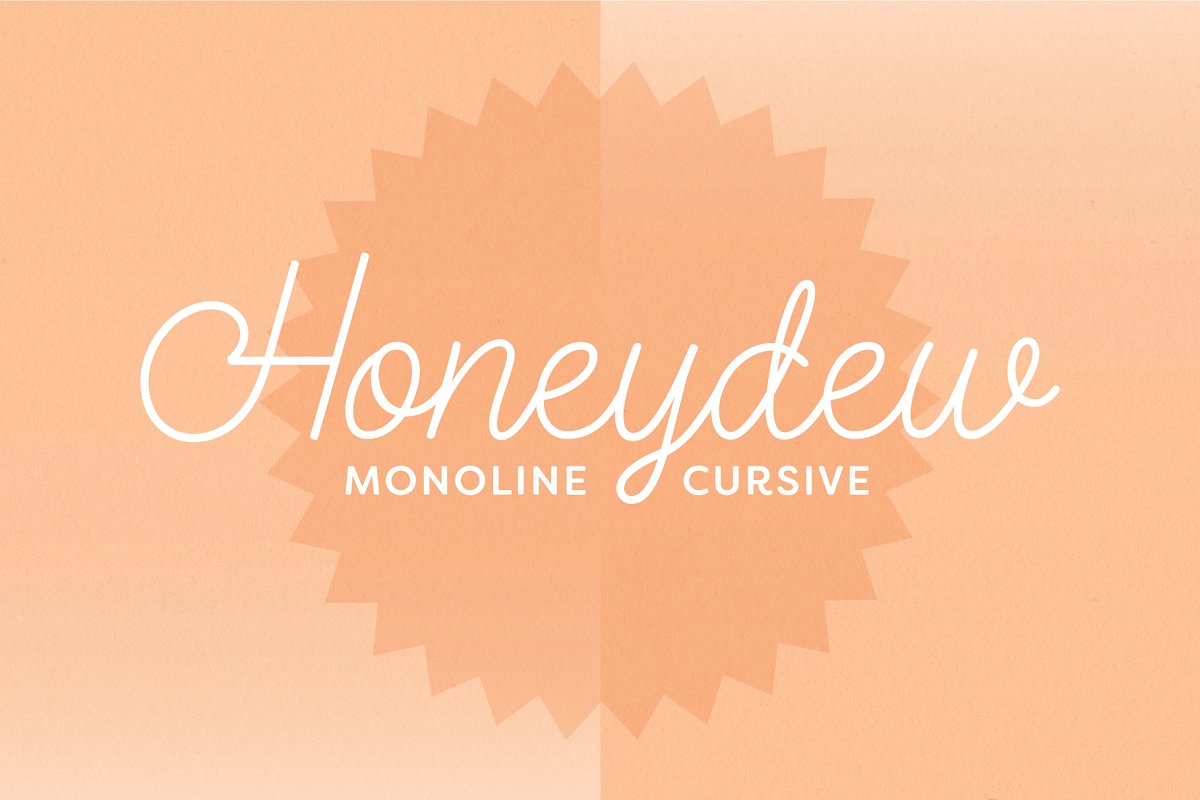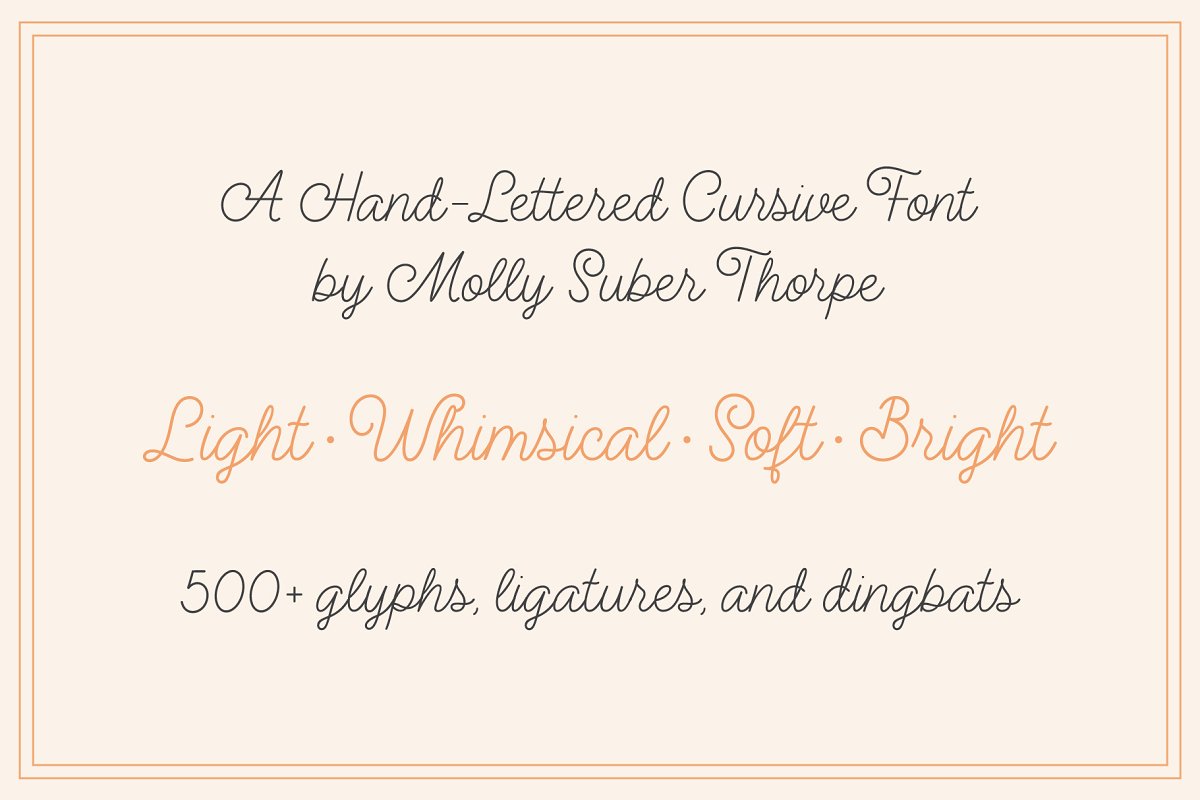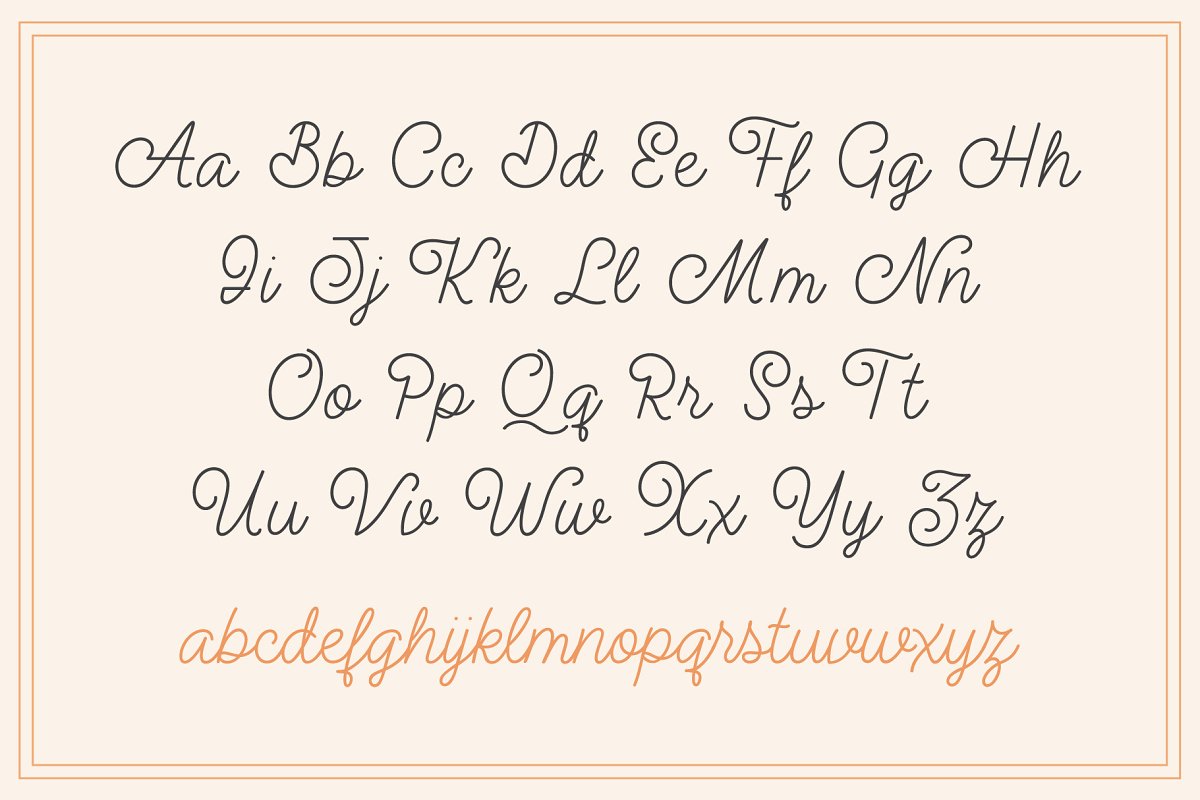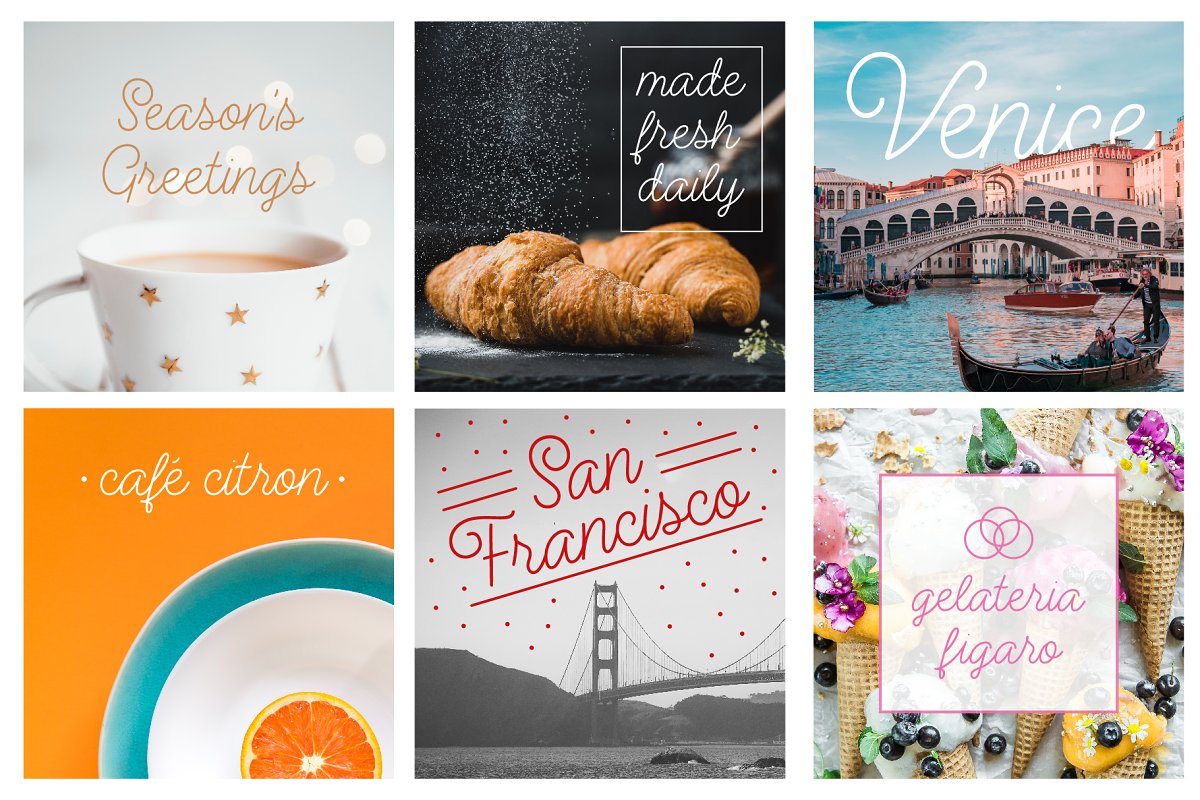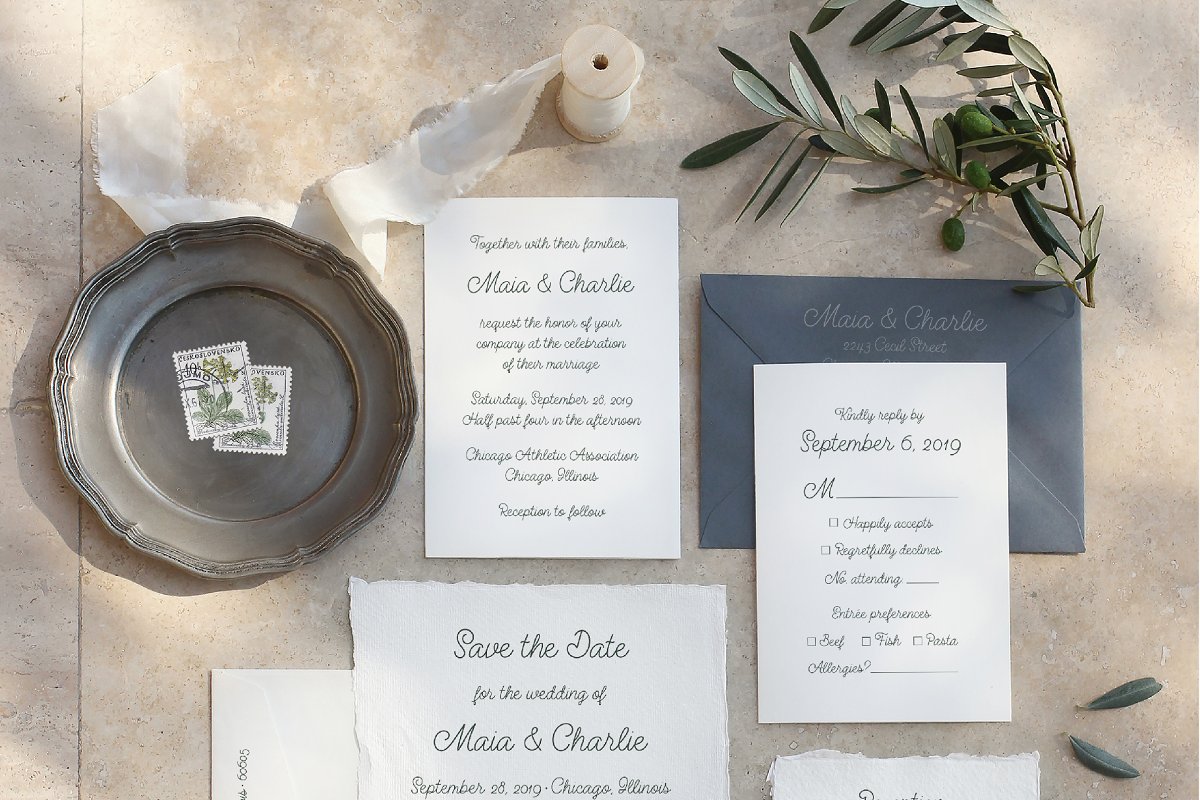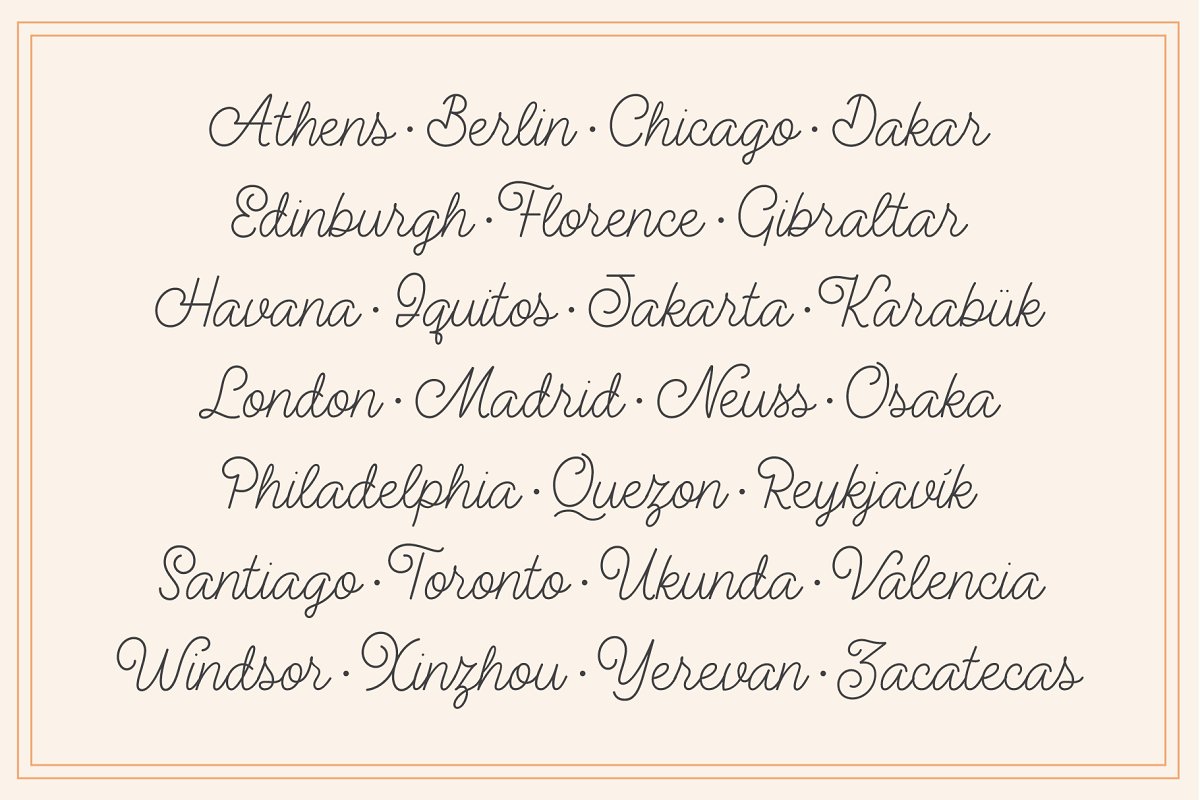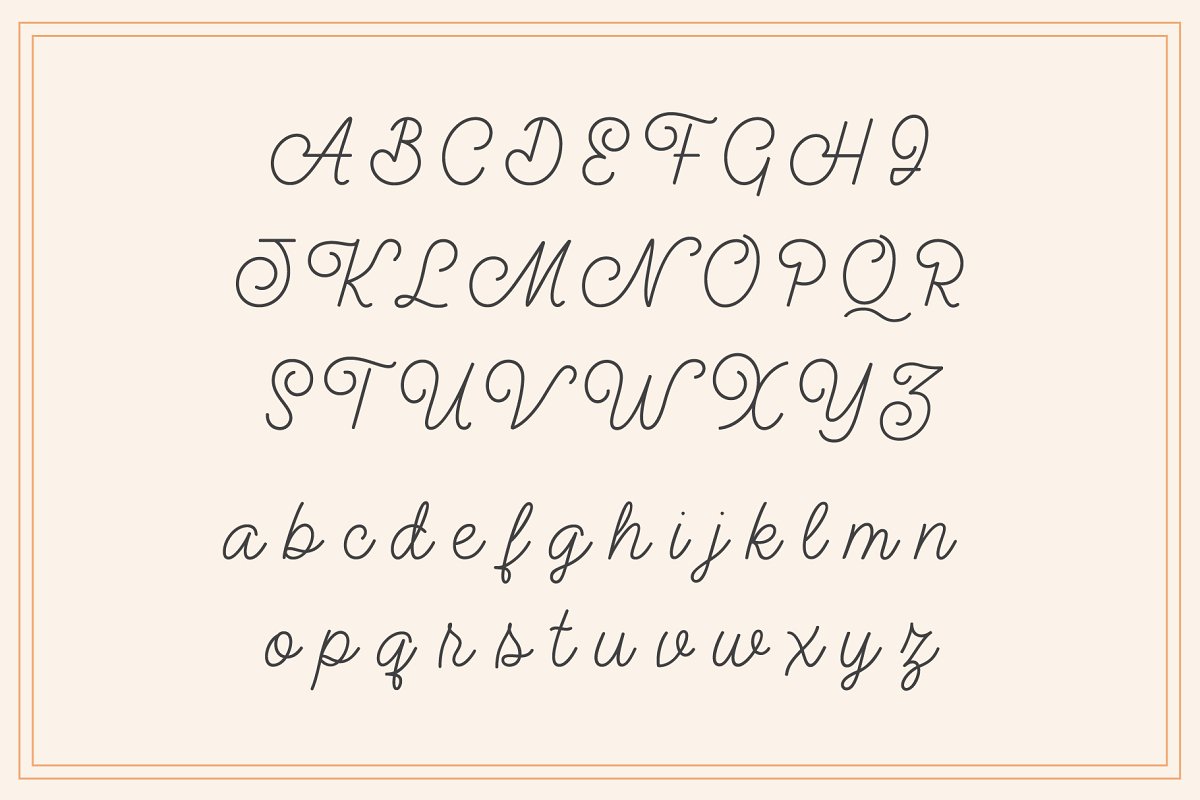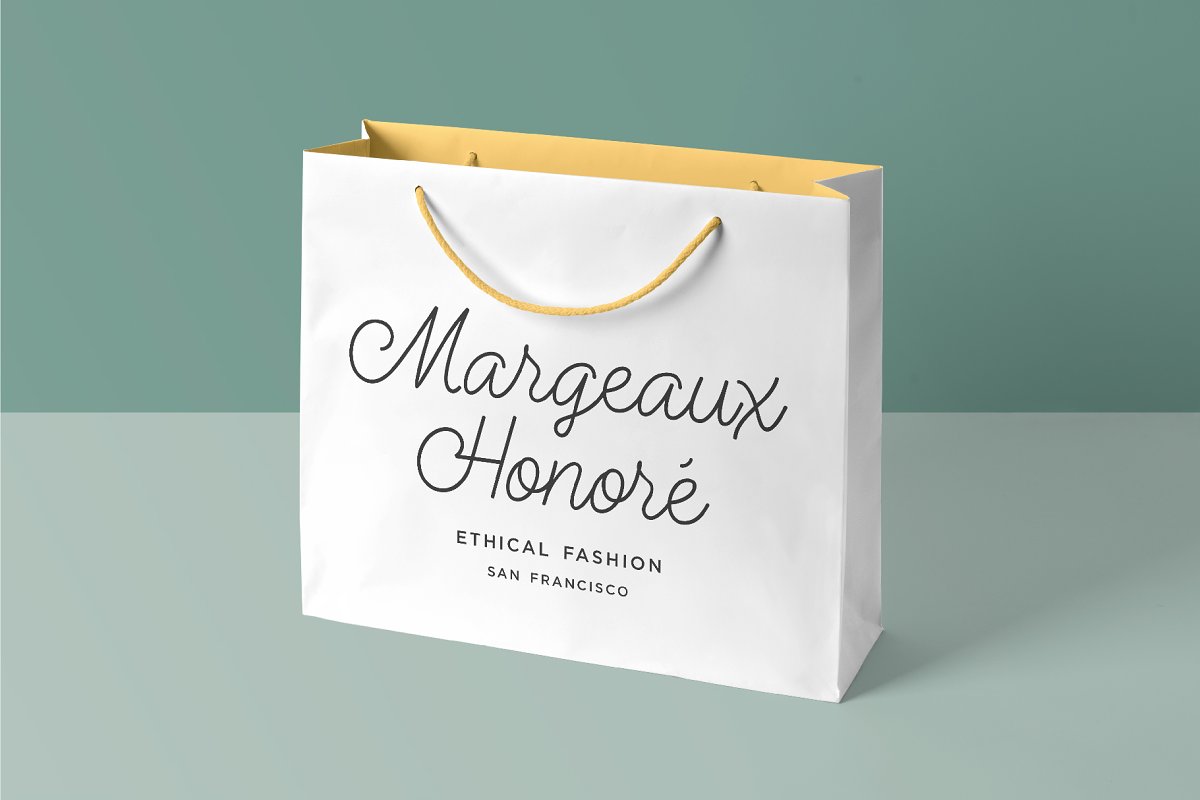
About the Honeydew Script Calligraphy Font
Honeydew Script: A Light, Whimsical, Soft & Bright FontHoneydew is a calligraphic font in a monoline script style, It is a modern twist on classic schoolhouse cursive, and is extremely versatile, Use this typeface for branding, social media, weddings, stationery, packaging, layout design, and advertising, The sky’s the limit!Honeydew has 527 glyphs, including the complete Latin alphabet (upper and lowercase), numbers (lining, old style, fractions, super/subscript), punctuation, and diacritics, and over 40 standard and discretionary ligatures
To get the most out of Honeydew, it is best to use software that supports Open Type fonts (Adobe programs, Corel Draw, Affinity Designer, etc) because it has built-in opentype kerning pairs and special ligatures to make the script look natural, For example, when the Open Type function is enabled and you type or, the font will automatically replace those two letters with a single glyph I designed, with a unique connector stroke